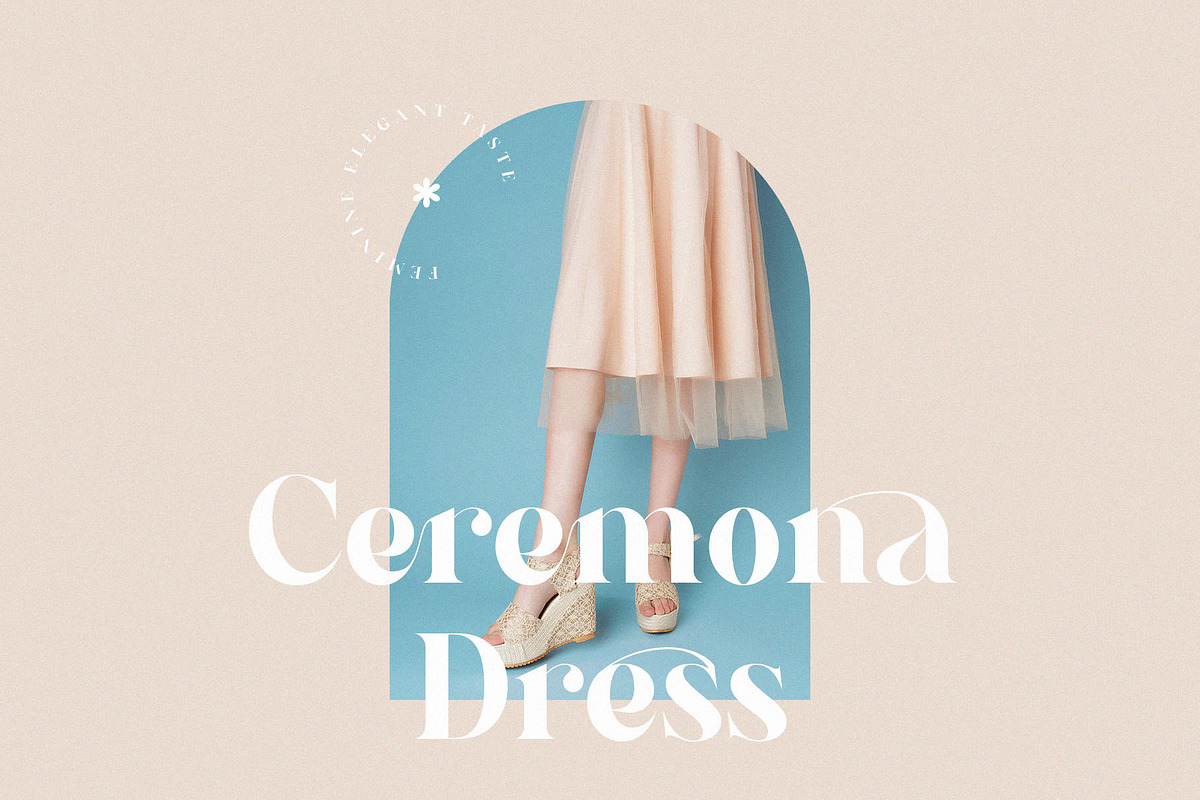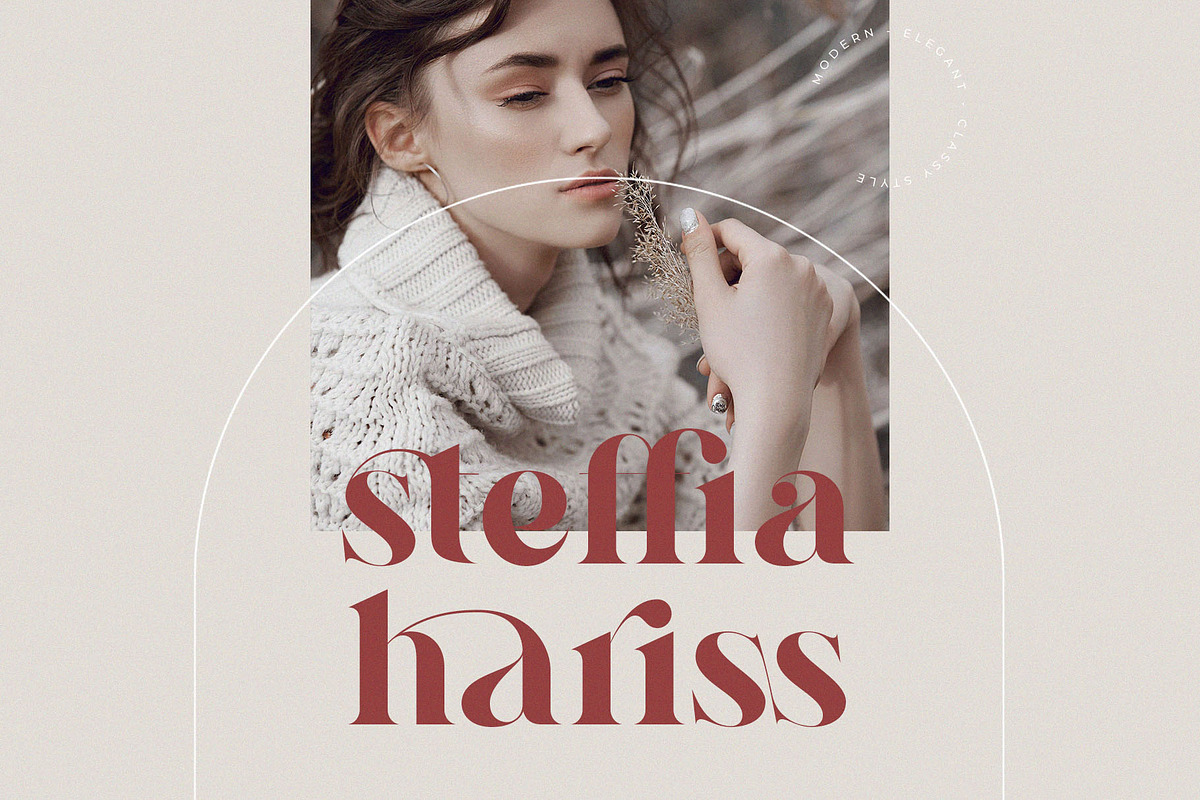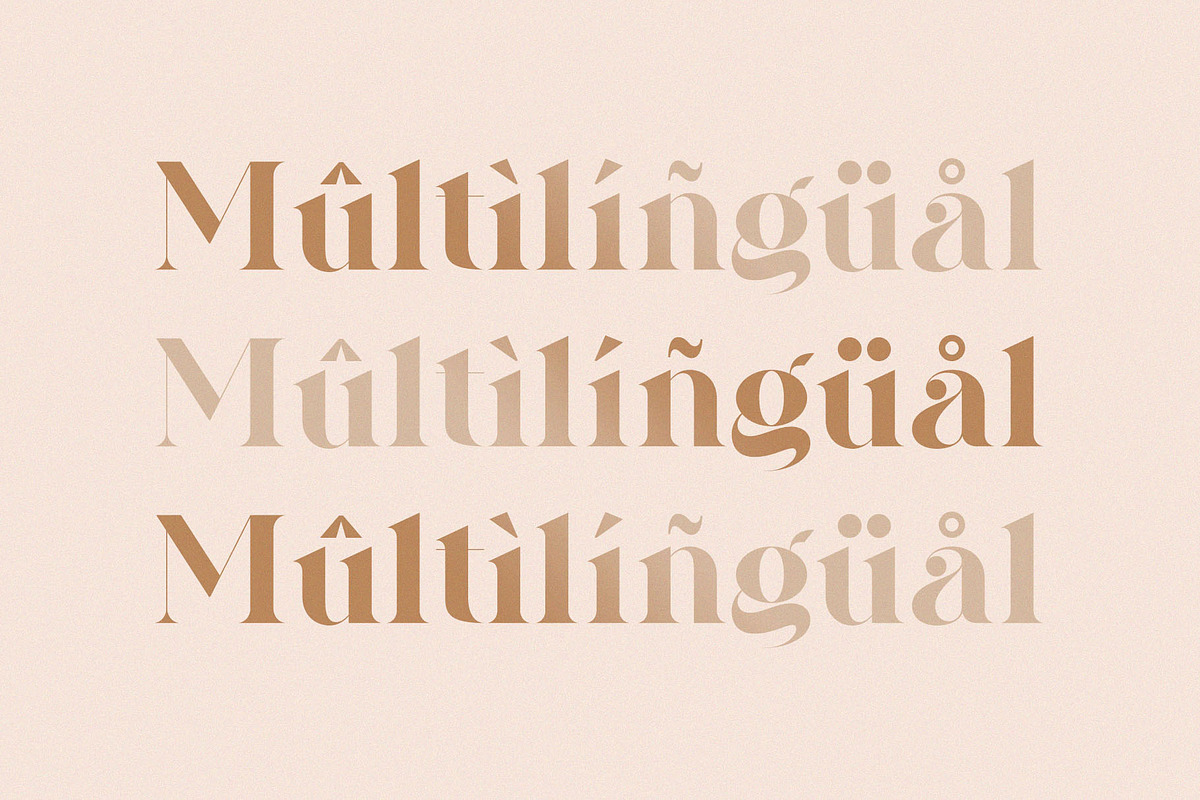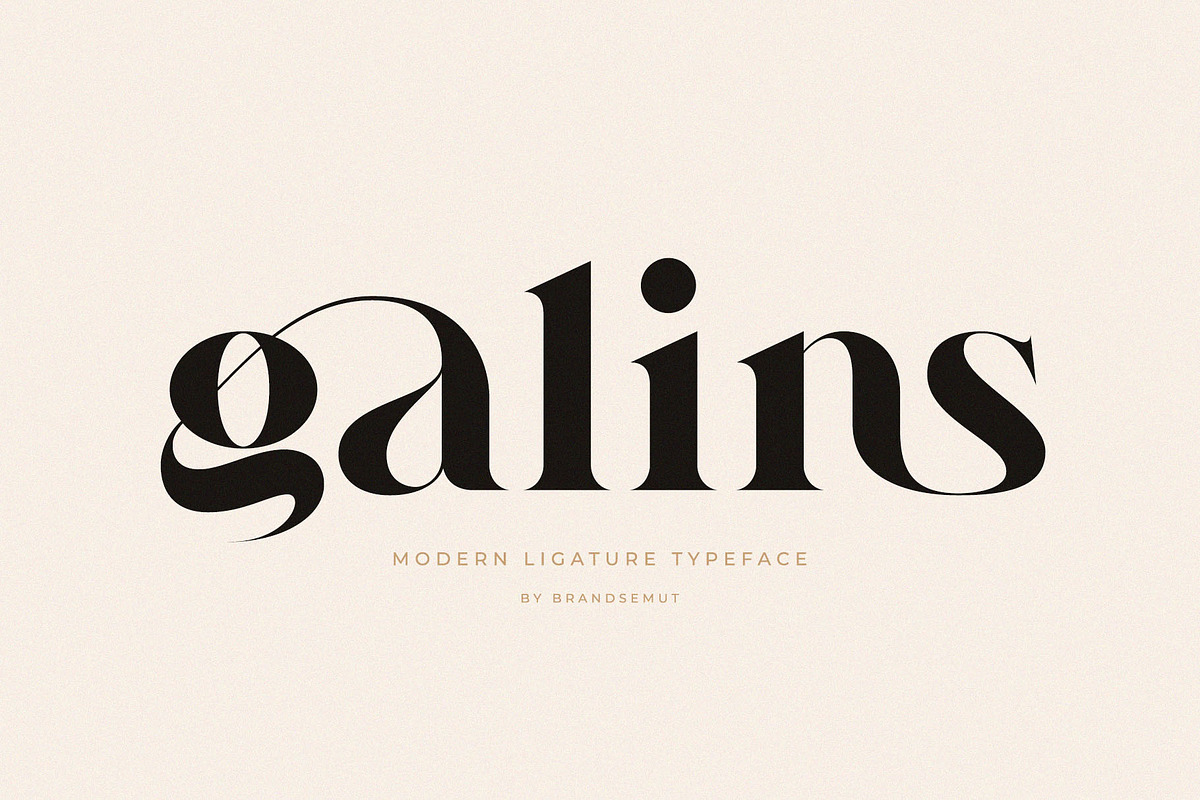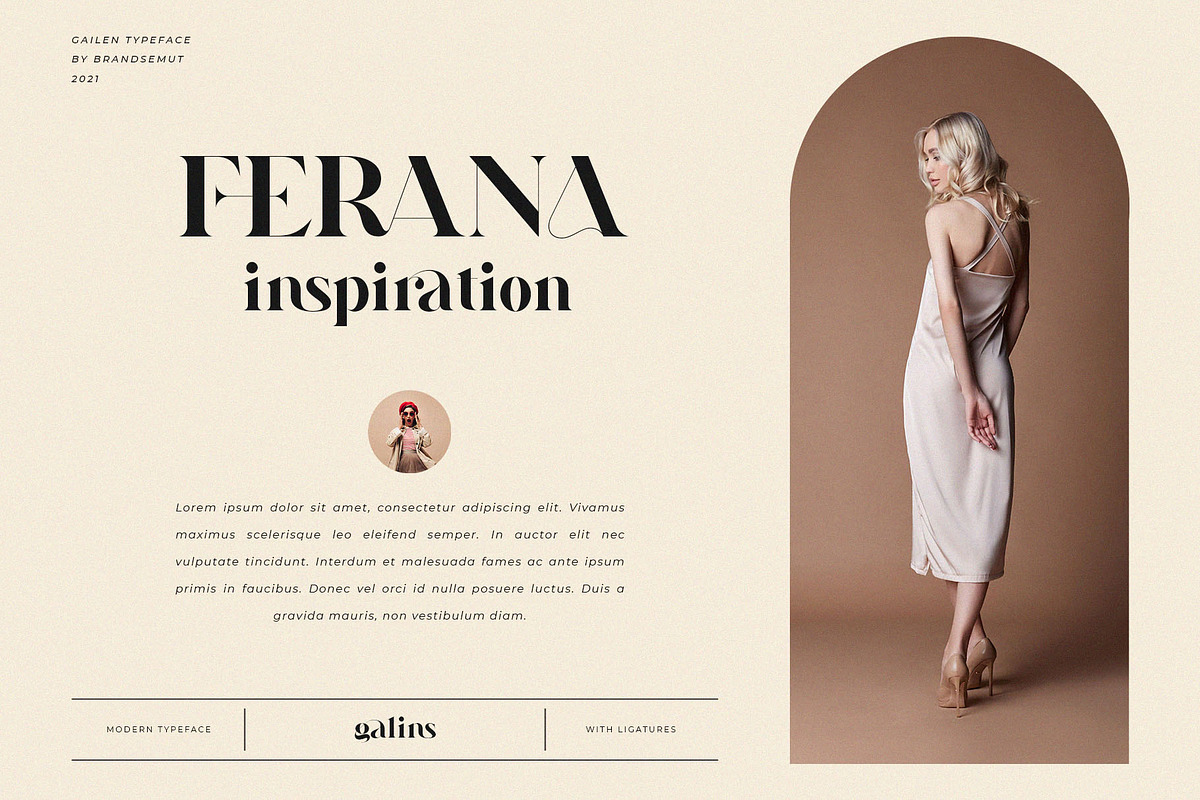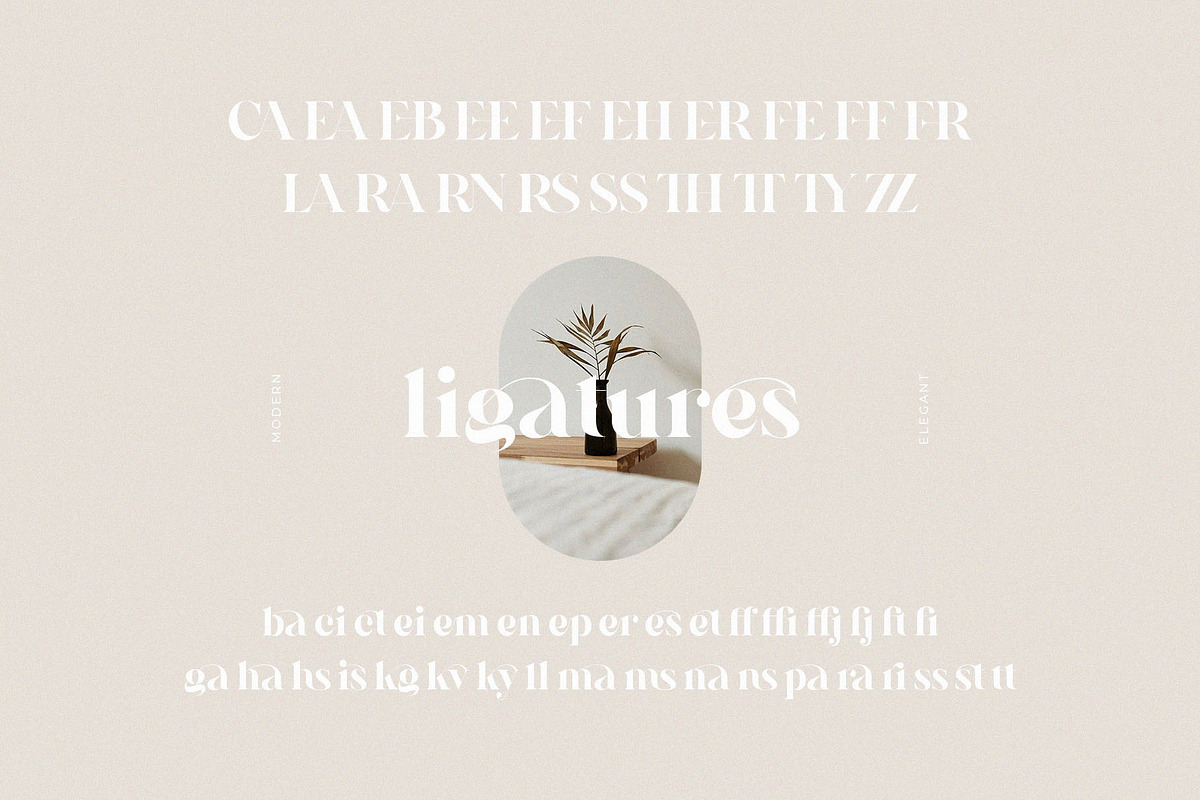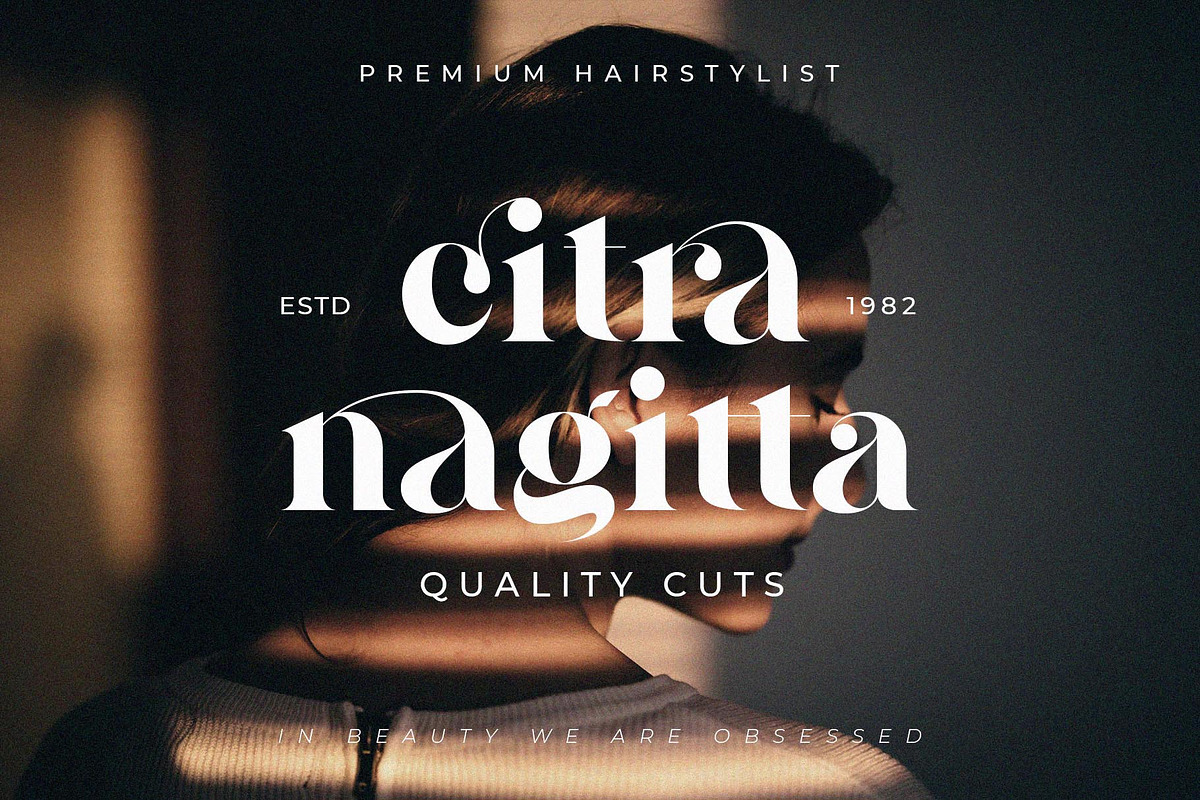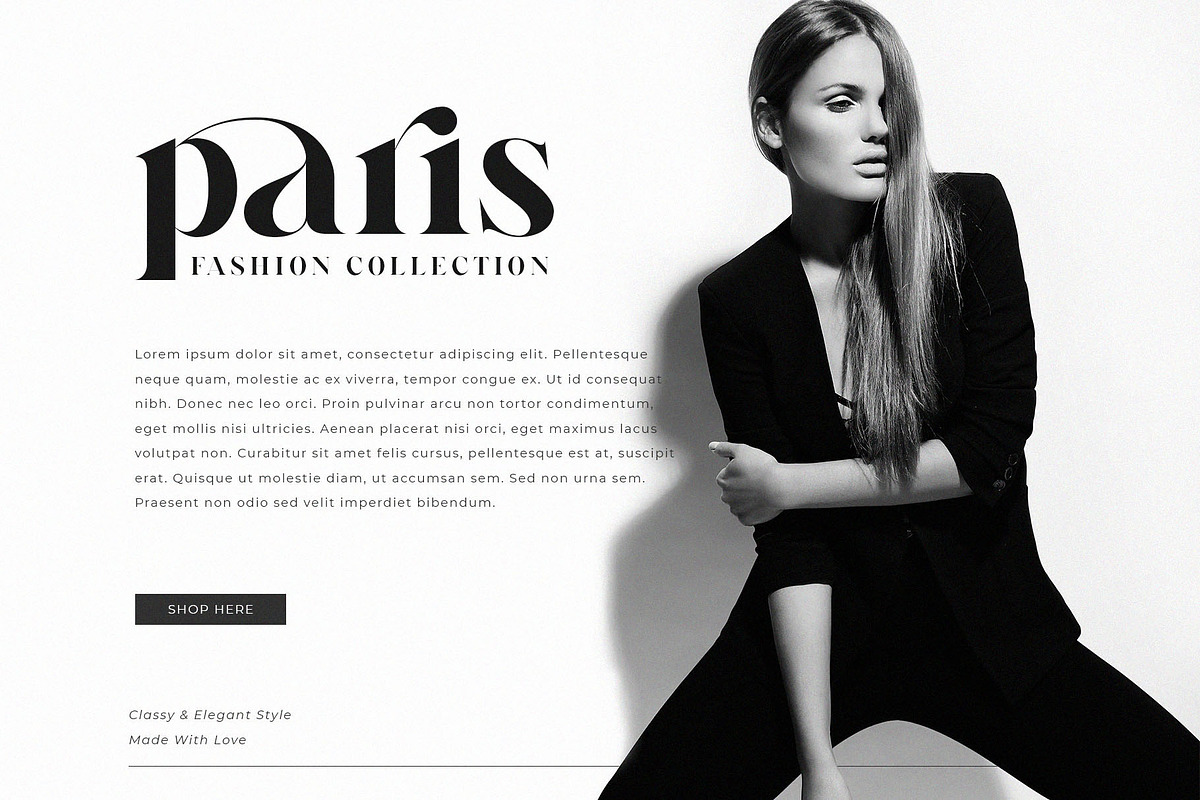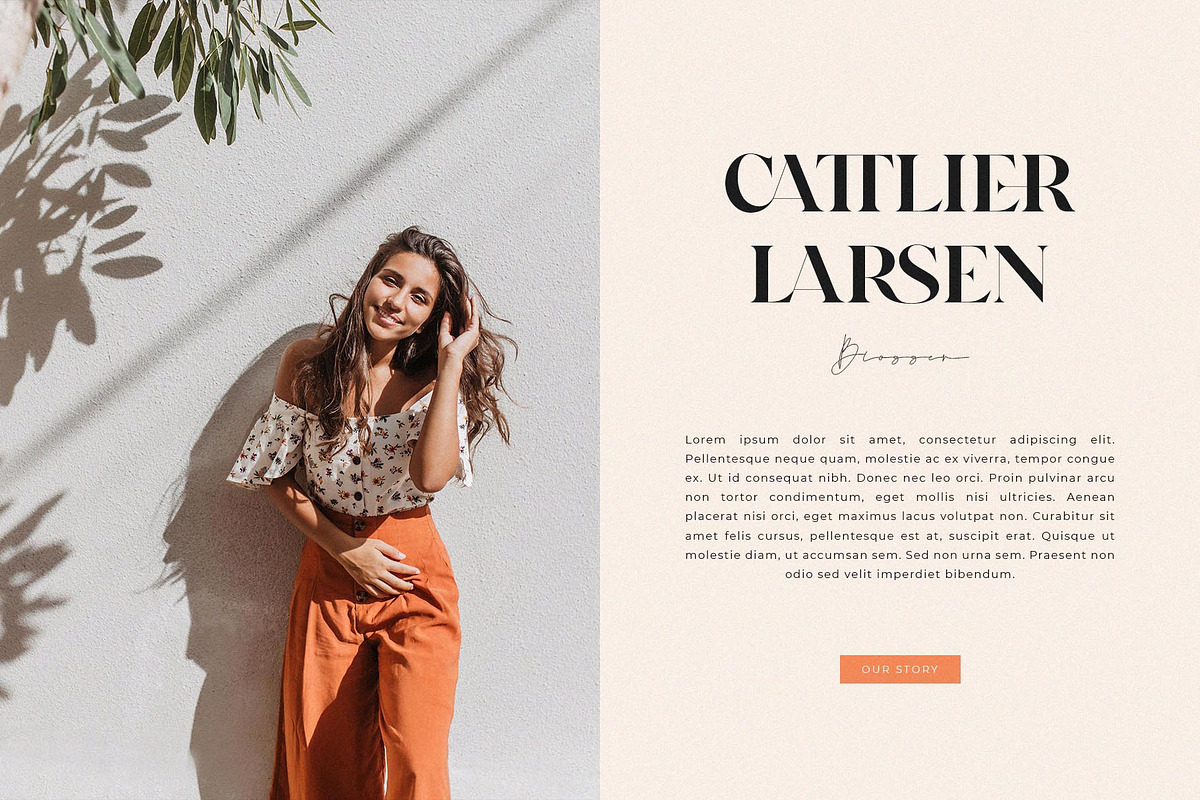
Galins – Ligature Typeface
Introducing the new Galins Ligature Typeface!! Galins is a modern and elegant serif font. This font is both modern and luxury and works great for logos, magazine, social media. Already matched up and ready to be used together for your next design! For those of you who are needing a touch of elegant, stylish, classy, chic and modernity for your designs, this font was created for you!
Galins was built with OpenType features and includes ligatures, alternates, numbers, punctuation, and it also supports other languages.